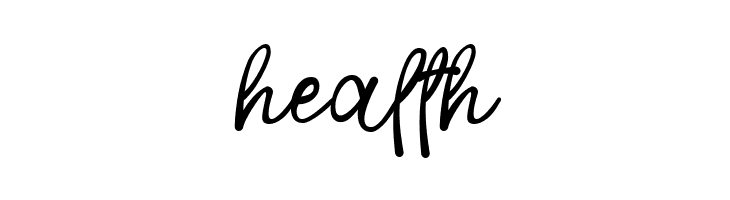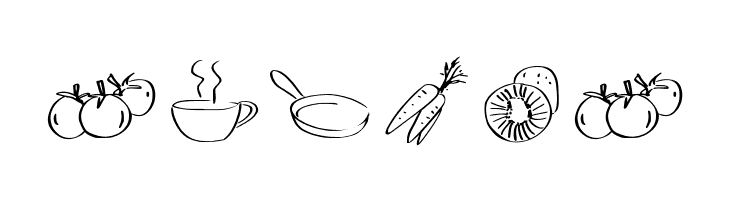
( Letterhend Studio - Hendry Juanda - creativemarket.com/letterhend )
A lively, handwritten cursive font with a dynamic and expressive style.
( Letterhend Studio - Hendry Juanda - creativemarket.com/letterhend )
A playful, bold handwritten font with rounded strokes and a casual style.
( Letterhend Studio - Hendry Juanda - creativemarket.com/letterhend )
A bold, expressive handwritten font with dynamic strokes and a brush-like texture.
( Letterhend Studio - Hendry Juanda - creativemarket.com/letterhend )
A bold, modern script font with a dynamic and elegant style.
( Peax Webdesign - www.peax-webdesign.com/goodies.html )
Hand-drawn, whimsical food and kitchen icon set.
( Pierre-Henri Ramboz - matoilnet.com )
A modern, rounded font with a geometric and monospaced appearance.
( Pisto Casero - Gilberto Moya Perona - www.pistocasero.com )
A distressed, vintage-style serif font with a textured, handcrafted appearance.
( RecklessHen - www.recklesshen.com )
A playful, dotted font with a whimsical and friendly appearance.
( Sabrtype - creativemarket.com/Sabrtype )
A bold, distressed font with a vintage, industrial stamp-like appearance.
( Zero Thompson - www.facebook.com/Zerografics )
A playful and casual handwritten font with an authentic, personal touch.